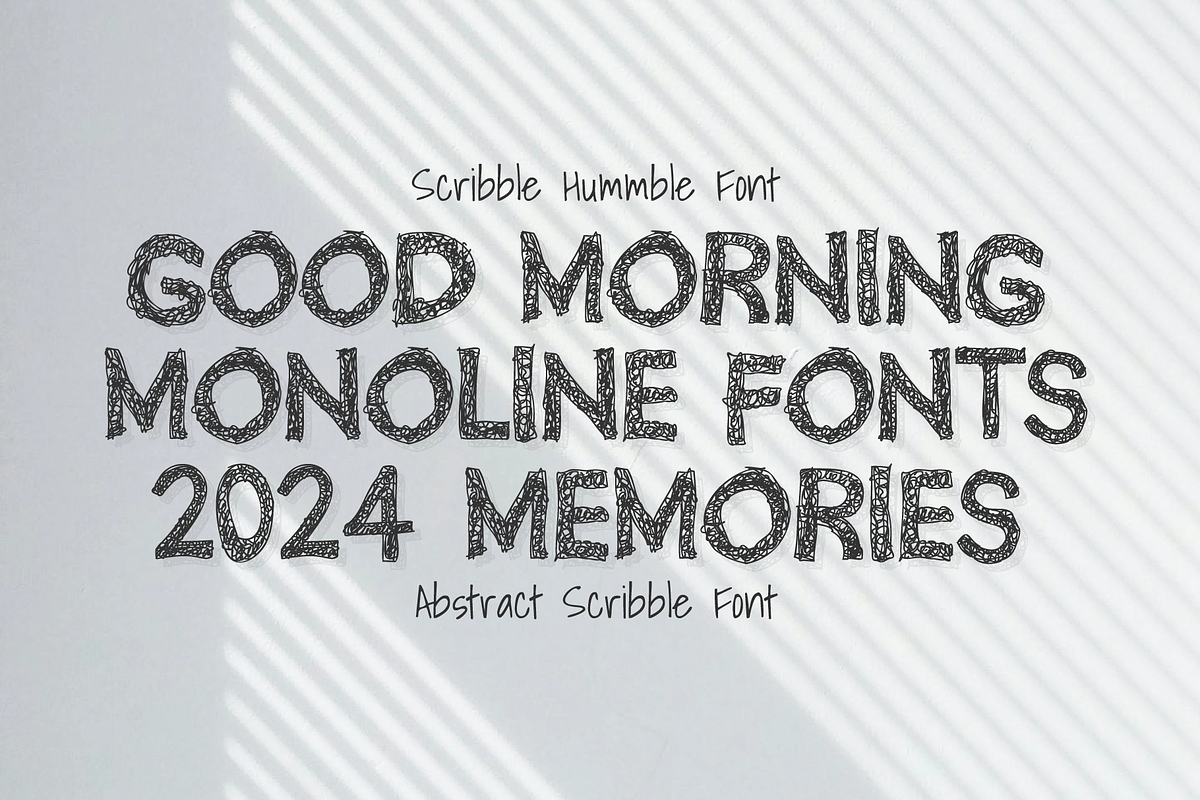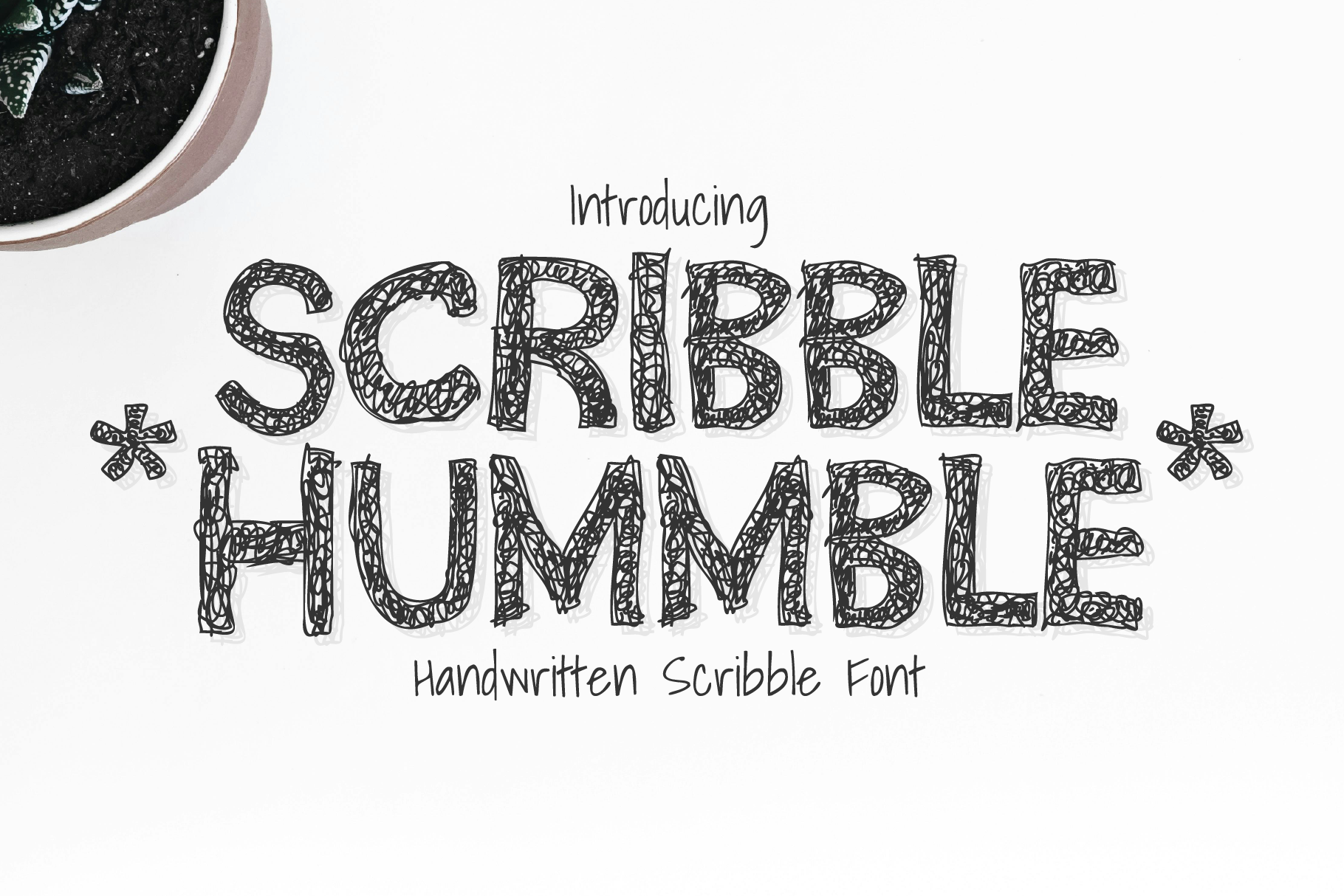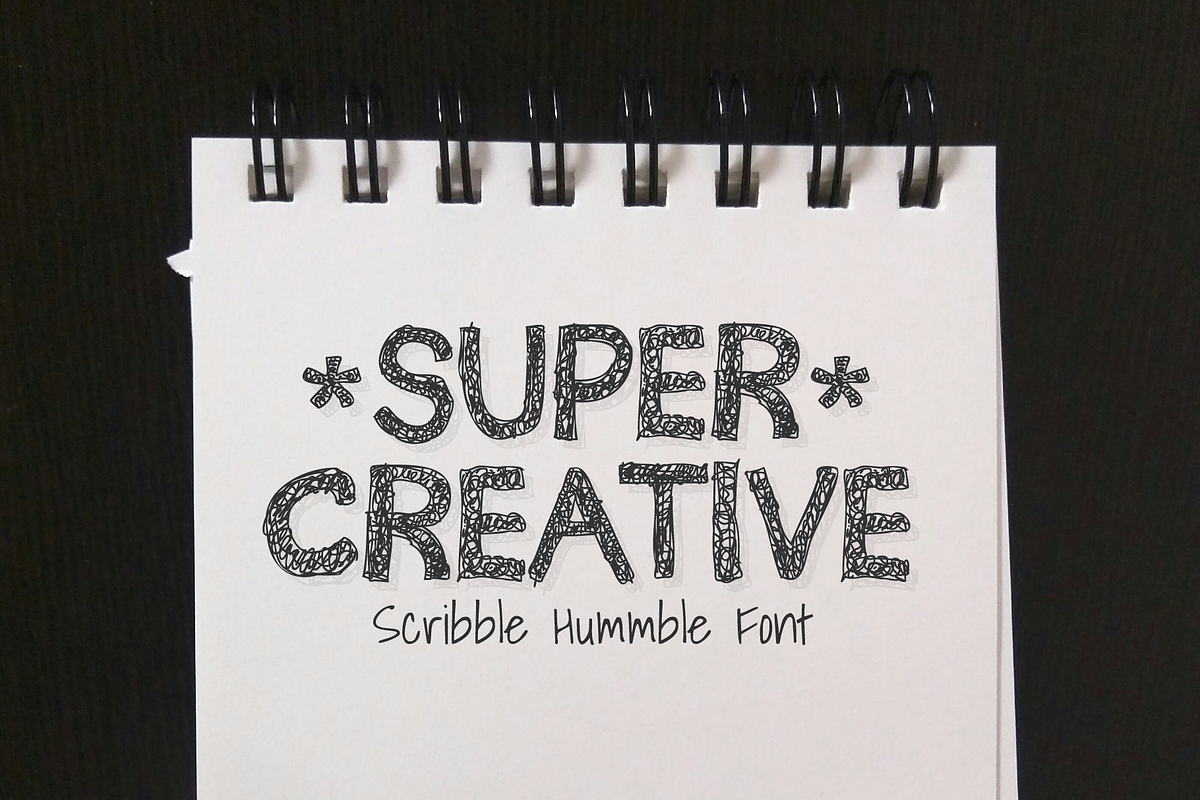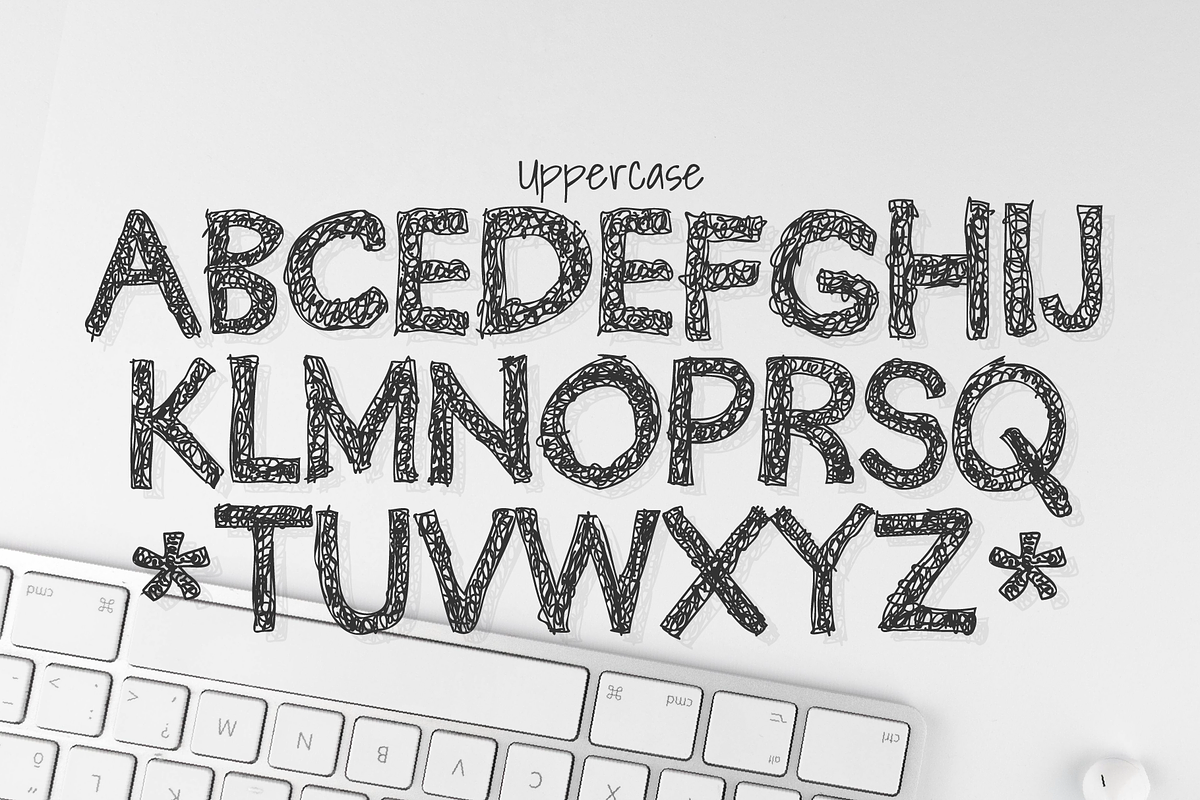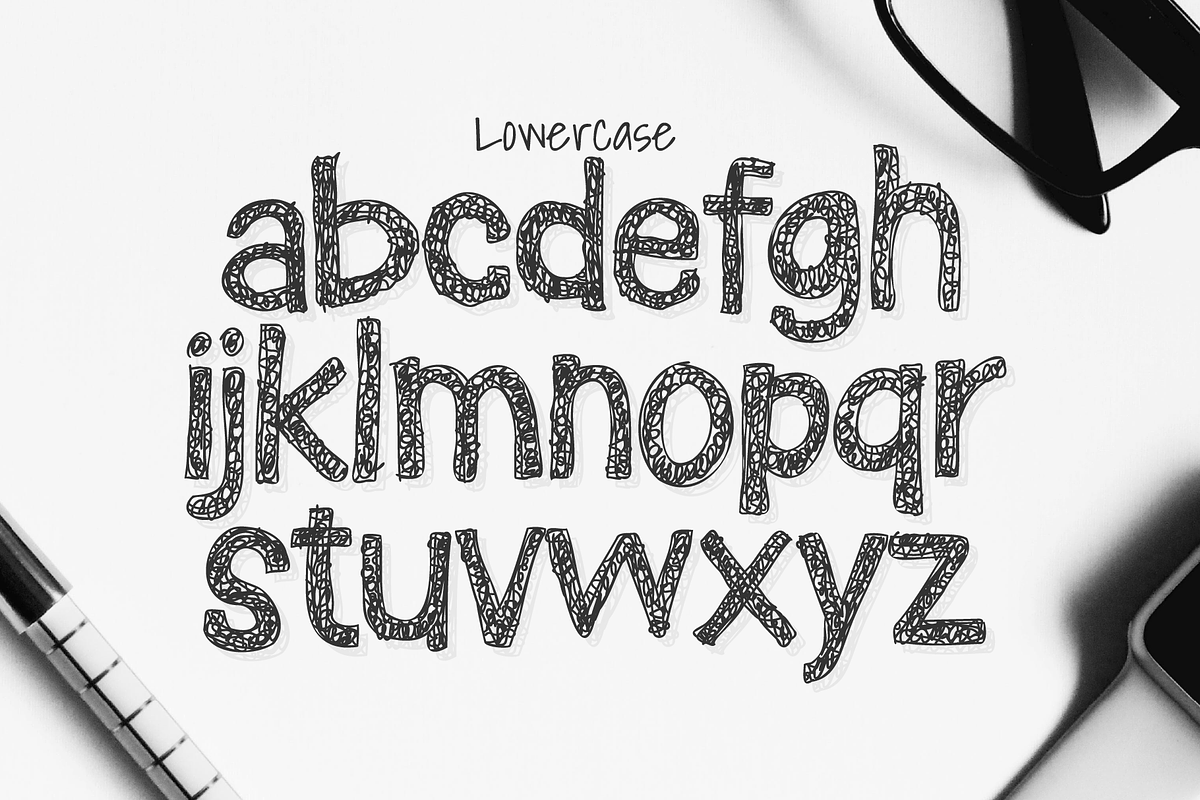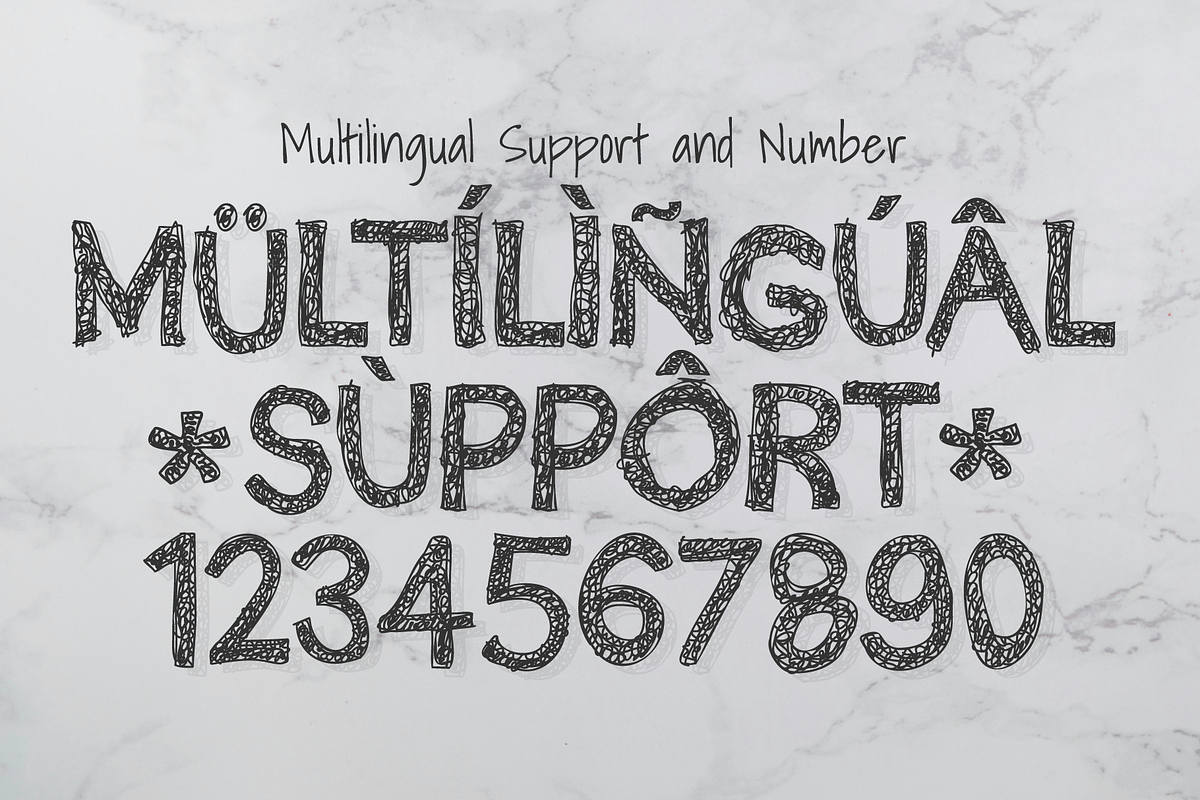
Scribble Hummble Handwritten Font
Scribble Hummble is a captivating handwritten font crafted with abstract scribbled outlines, each stroke unique and irregular. Its unconventional design exudes creativity and individuality, making it perfect for projects that seek a distinctive touch. This font stands out with its irregular yet mesmerizing appearance, adding an artistic flair to any design. This is the updated Scribble Hummble